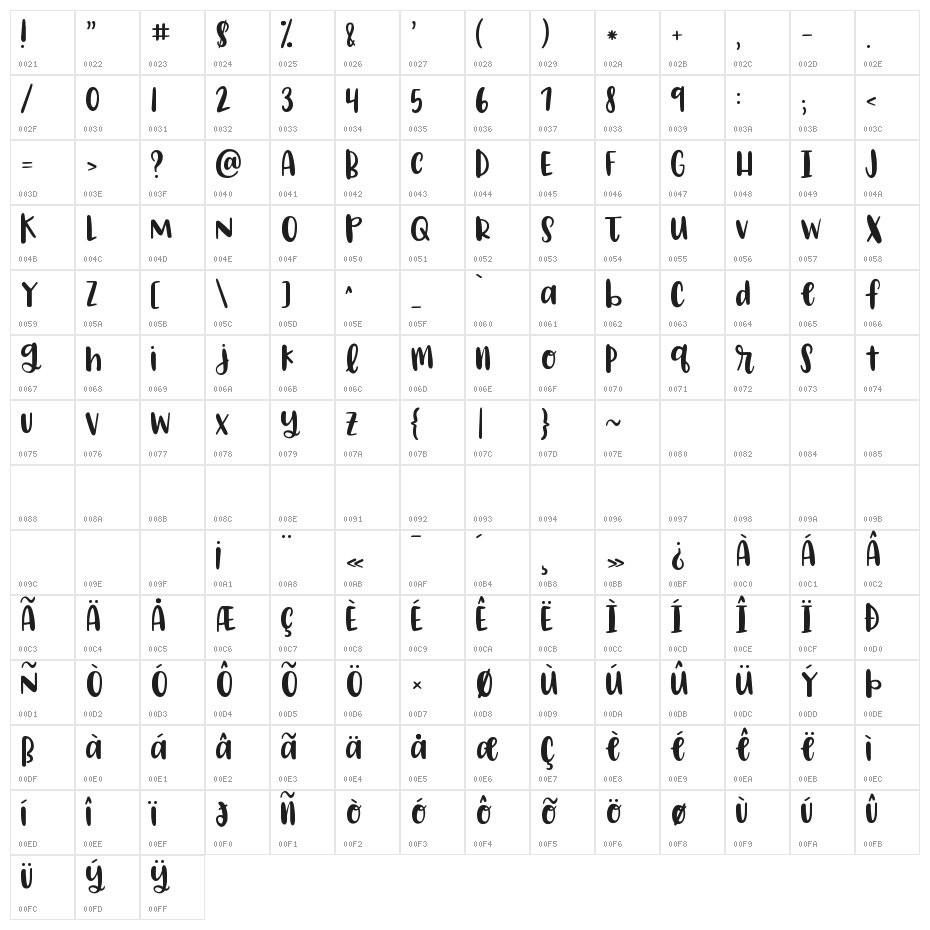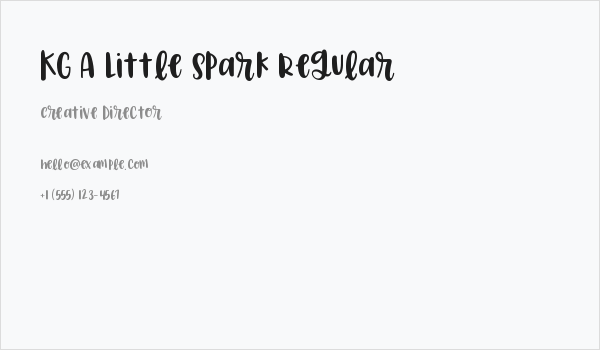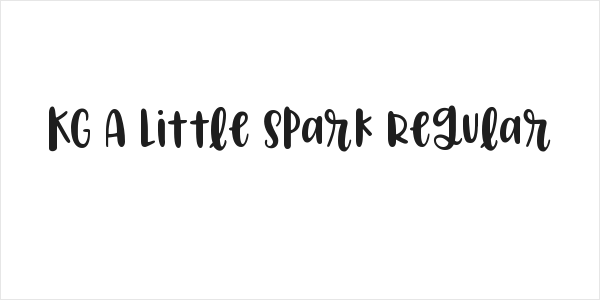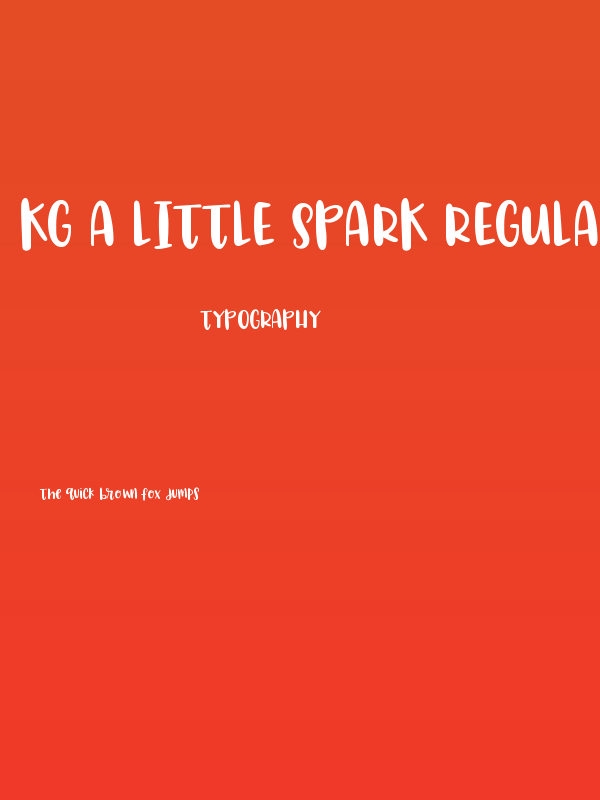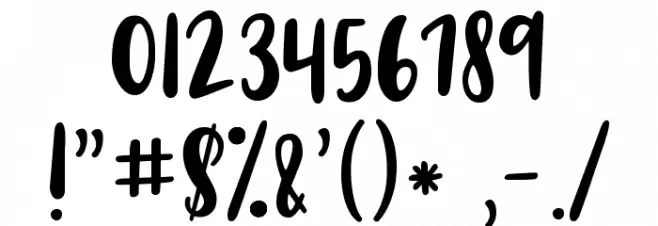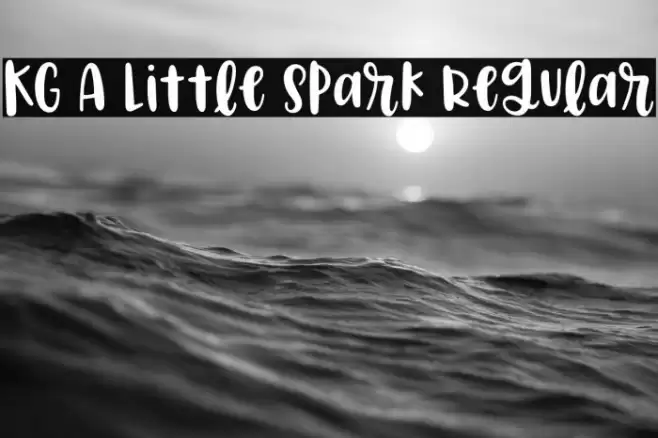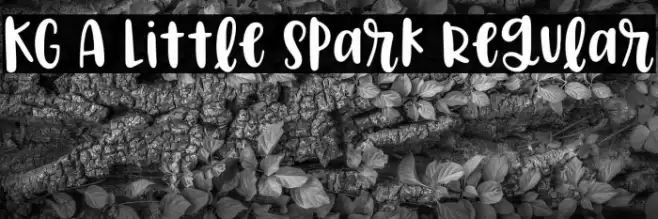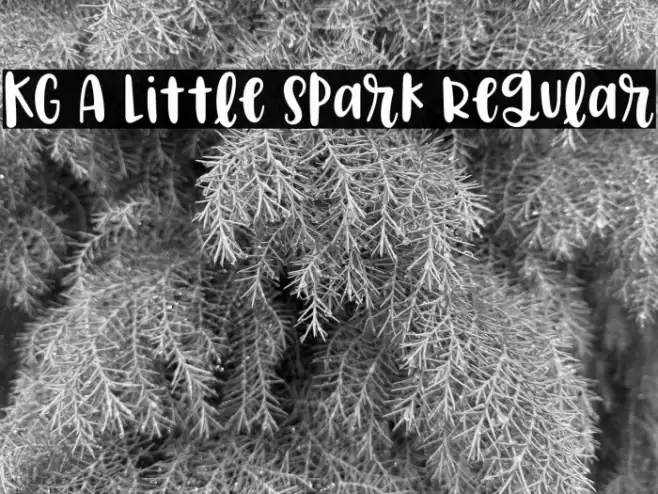
KG A Little Spark Regular Font
This playful and whimsical font features a handwritten style with a bold and rounded appearance. The characters are slightly irregular, giving it a charming and informal look. The uppercase letters are tall and slightly narrow, while the lowercase letters have a more rounded and flowing form. The numbers and special characters maintain the same playful aesthetic, making the font versatile for various creative projects. Its bold strokes and smooth curves make it highly legible, even at smaller sizes. The font exudes a friendly and approachable vibe, perfect for adding a touch of personality to any design.
| Use Case | Headlines, Logos, Social media graphics |
| Proposed Projects | Ideal for greeting cards, children's books, playful branding, and social media graphics. |